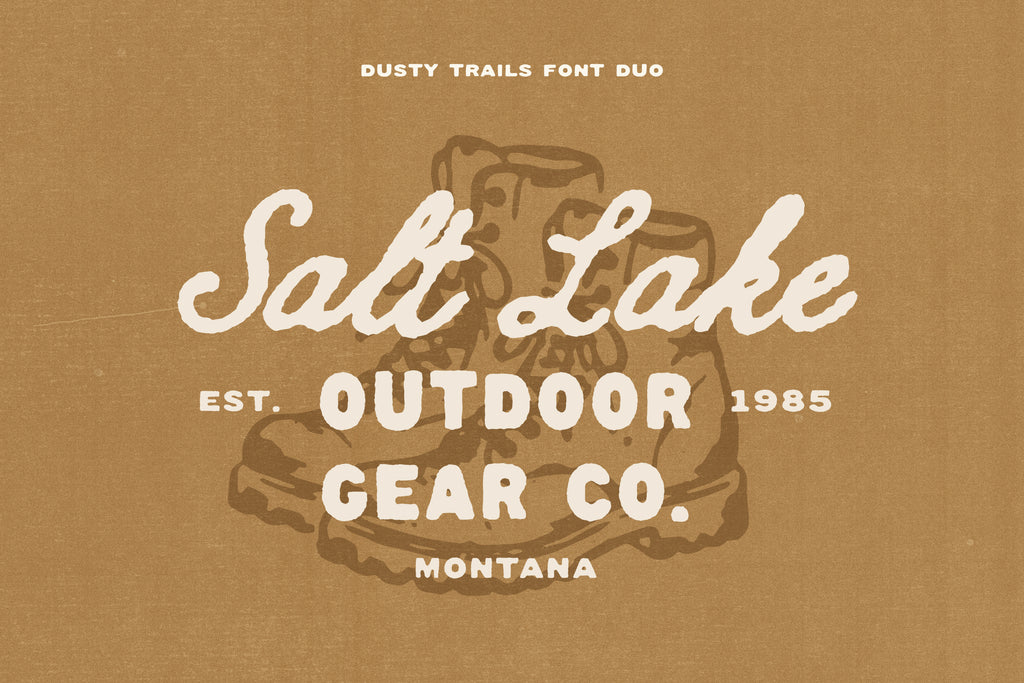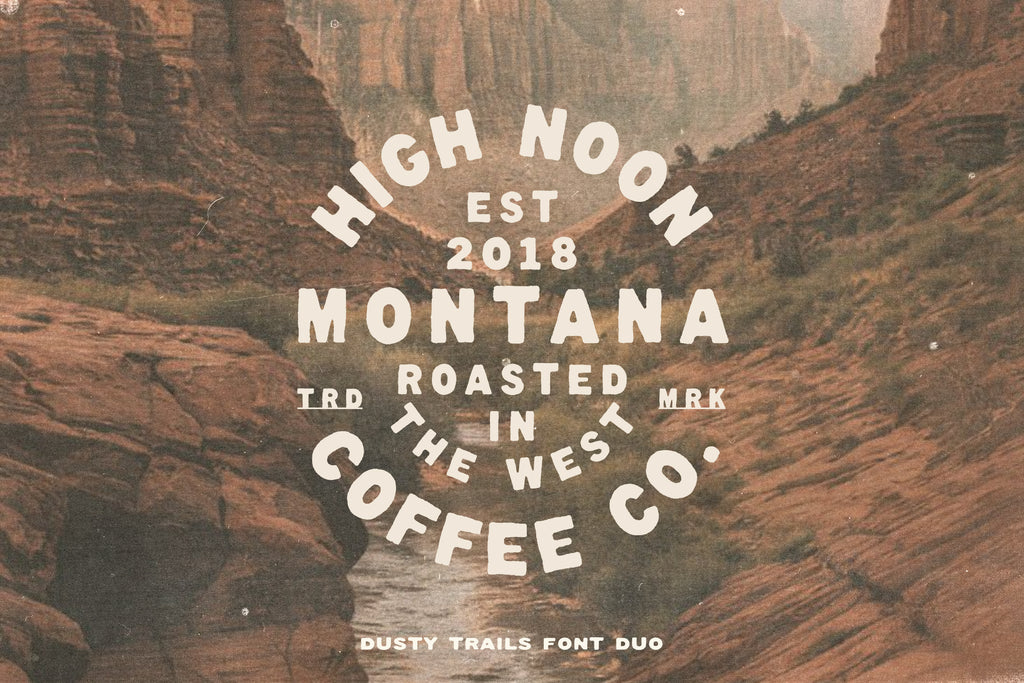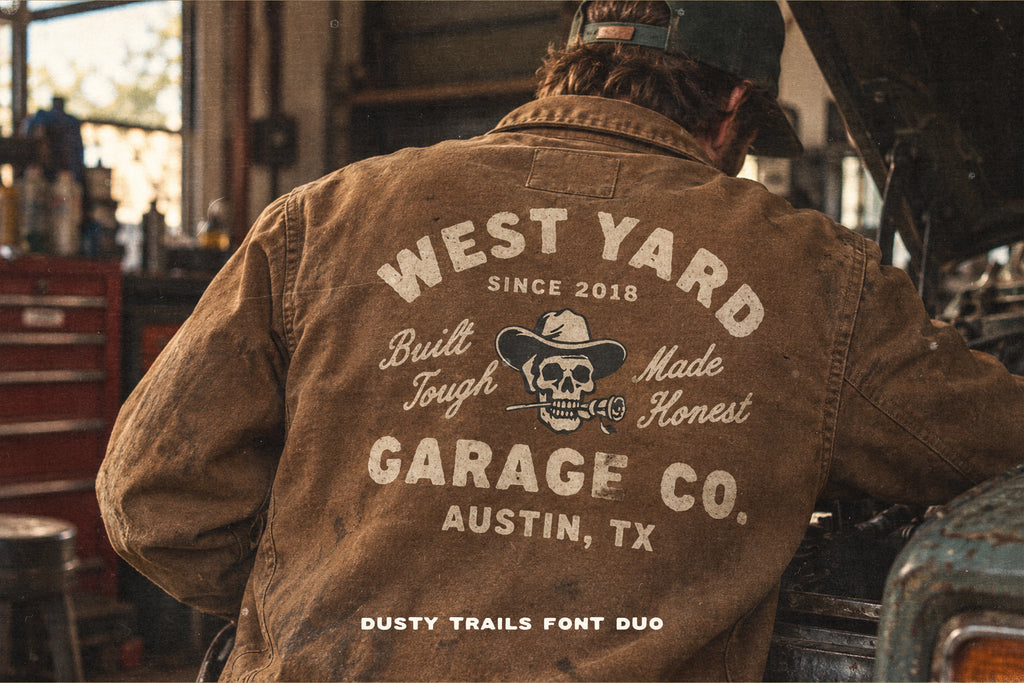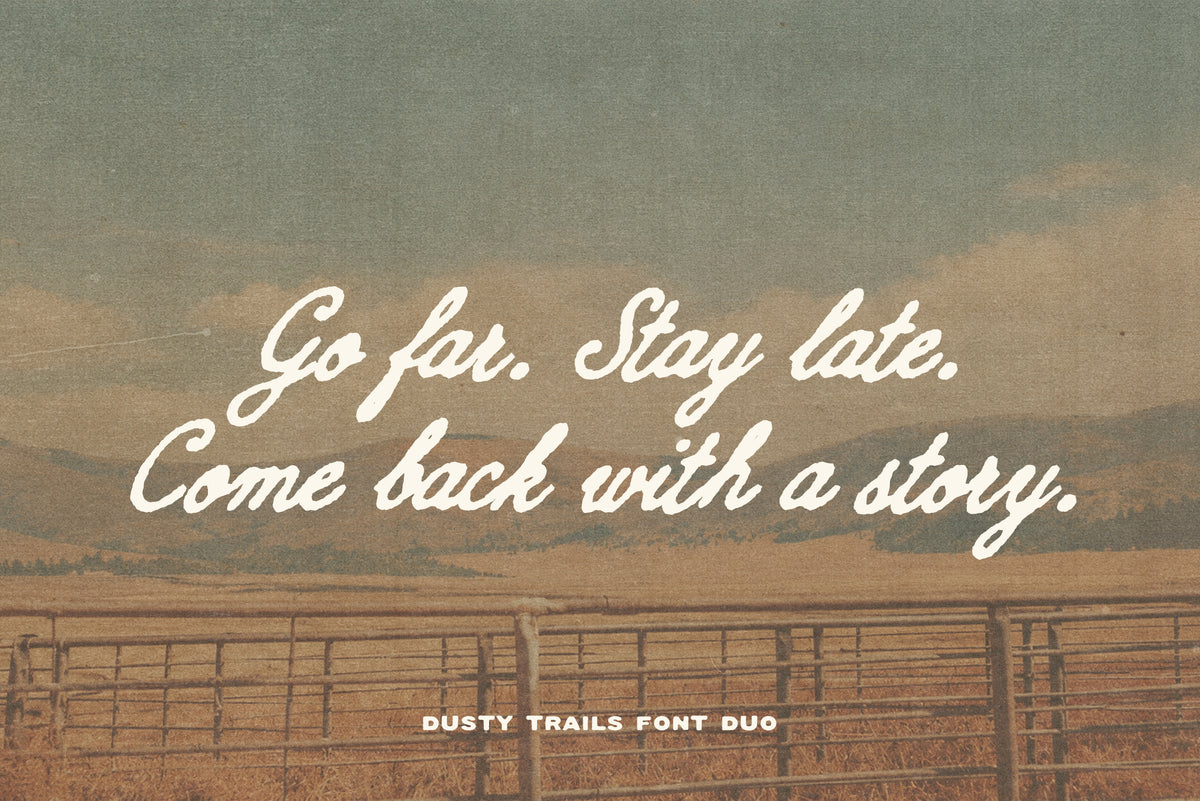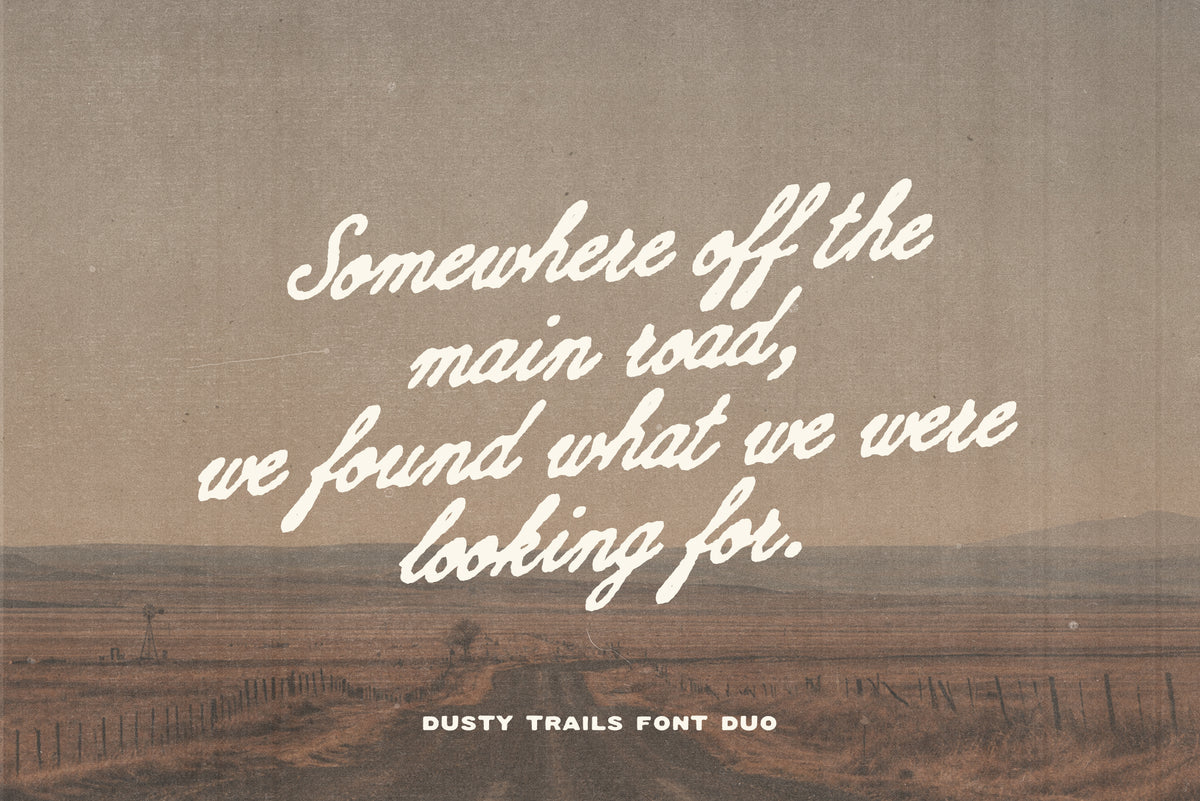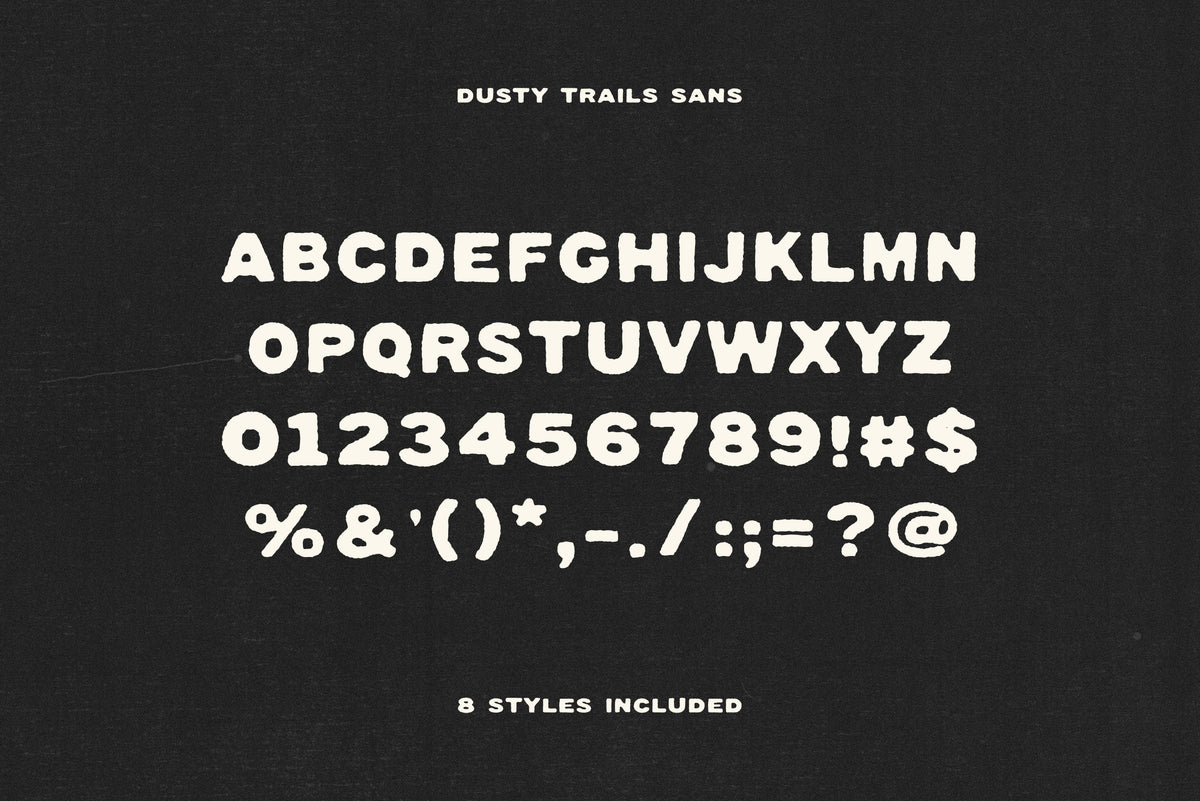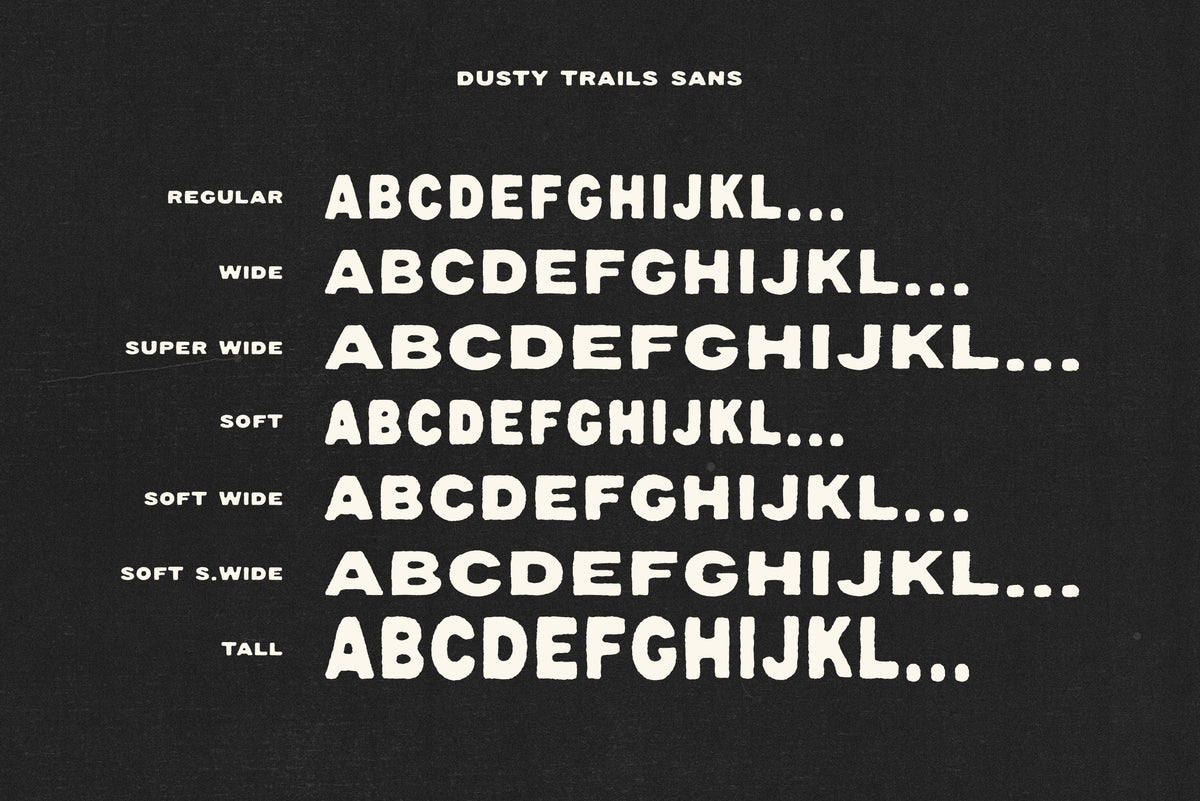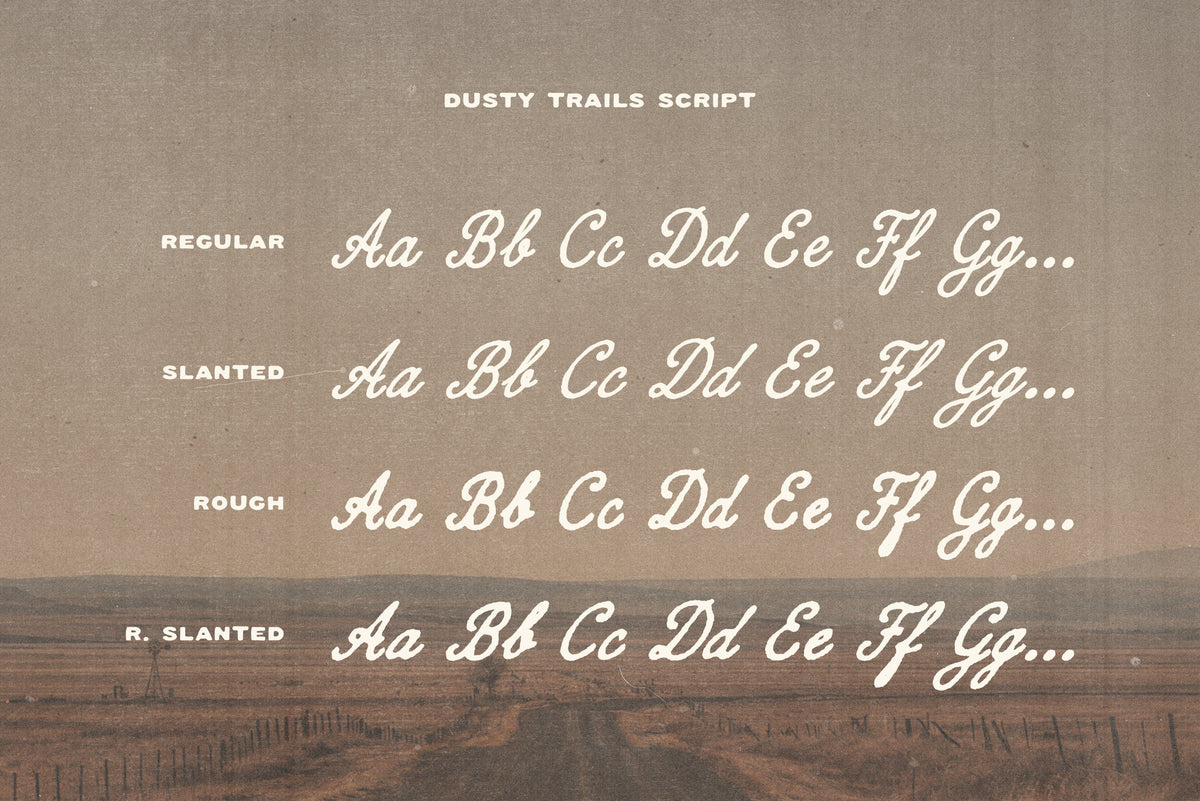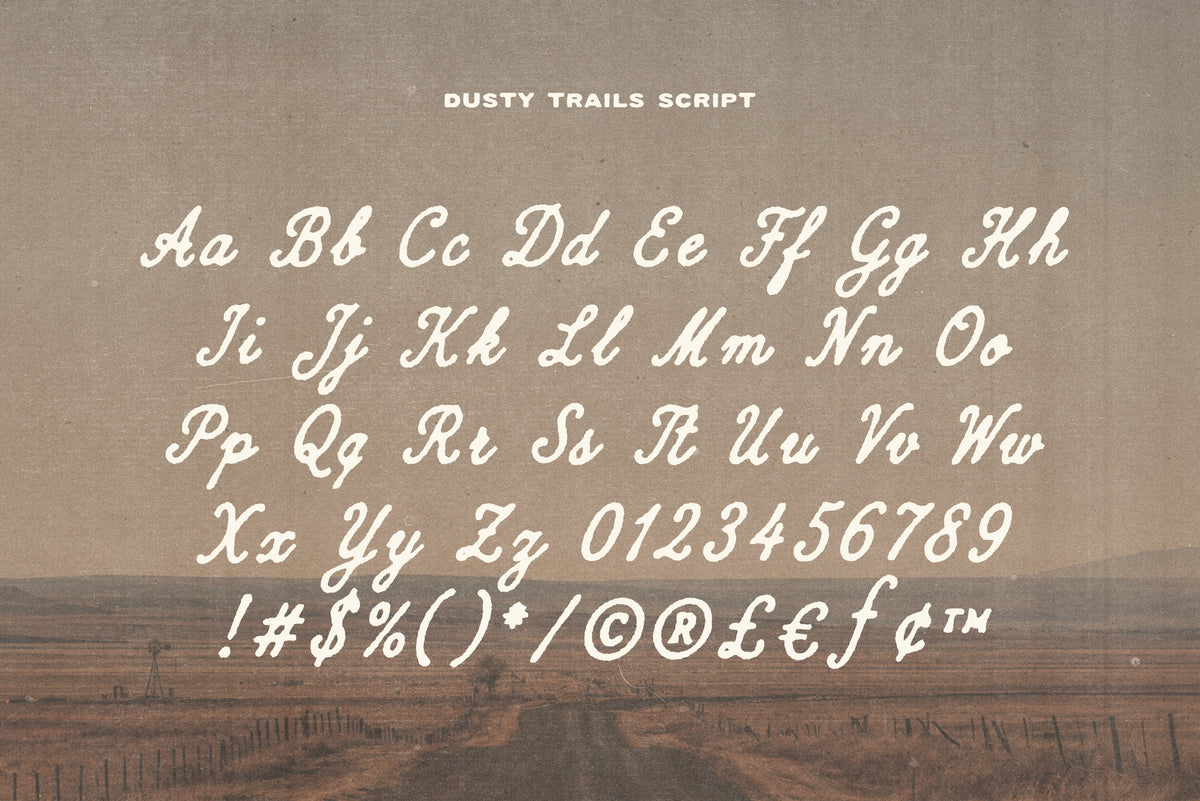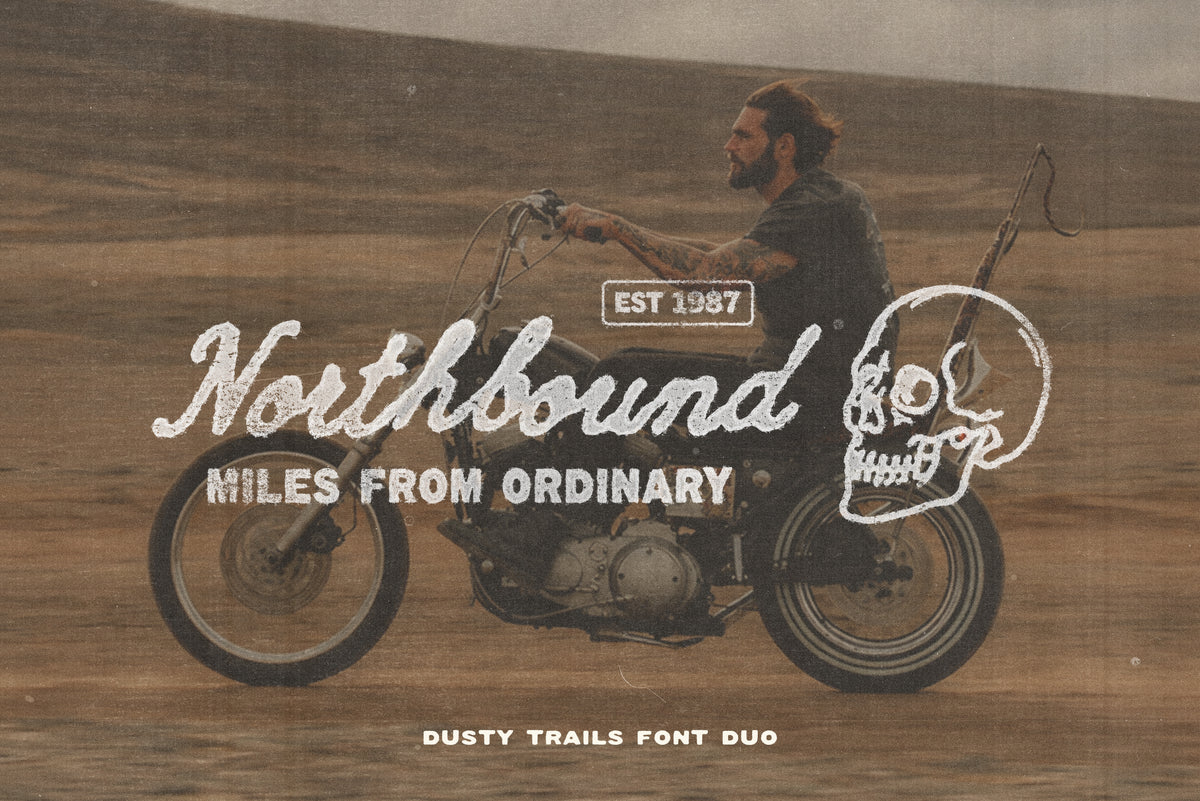
Dusty Trails is a handmade font duo inspired by open roads, worn-out gear, old garage signs, and the freedom of going somewhere with no particular place to be.
Pairing a character-rich vintage script with a bold, imperfect sans, Dusty Trails was made for designs that need to feel lived-in, authentic, and a little rough around the edges. From outdoor and apparel brands to garage graphics, packaging, badges, posters, merchandise, and vintage-inspired identities, the two typefaces were designed to naturally work together and make building expressive layouts easy.
Dusty Trails includes 12 carefully crafted font styles, combining a versatile handmade Sans family with a character-rich vintage Script. Mix different widths, proportions and textures to create everything from bold apparel graphics and logos to badges, packaging and expressive editorial layouts.
Dusty Trails Sans — 8 Styles
Regular · Wide · Super Wide · Tall · Soft · Soft Wide · Soft Super Wide · Soft Tall
Dusty Trails Script — 4 Styles
Regular · Slant · Rough · Rough Slanted
All styles are designed to work naturally together, giving you a complete typographic toolkit while keeping the same handmade, worn-in character across every design.